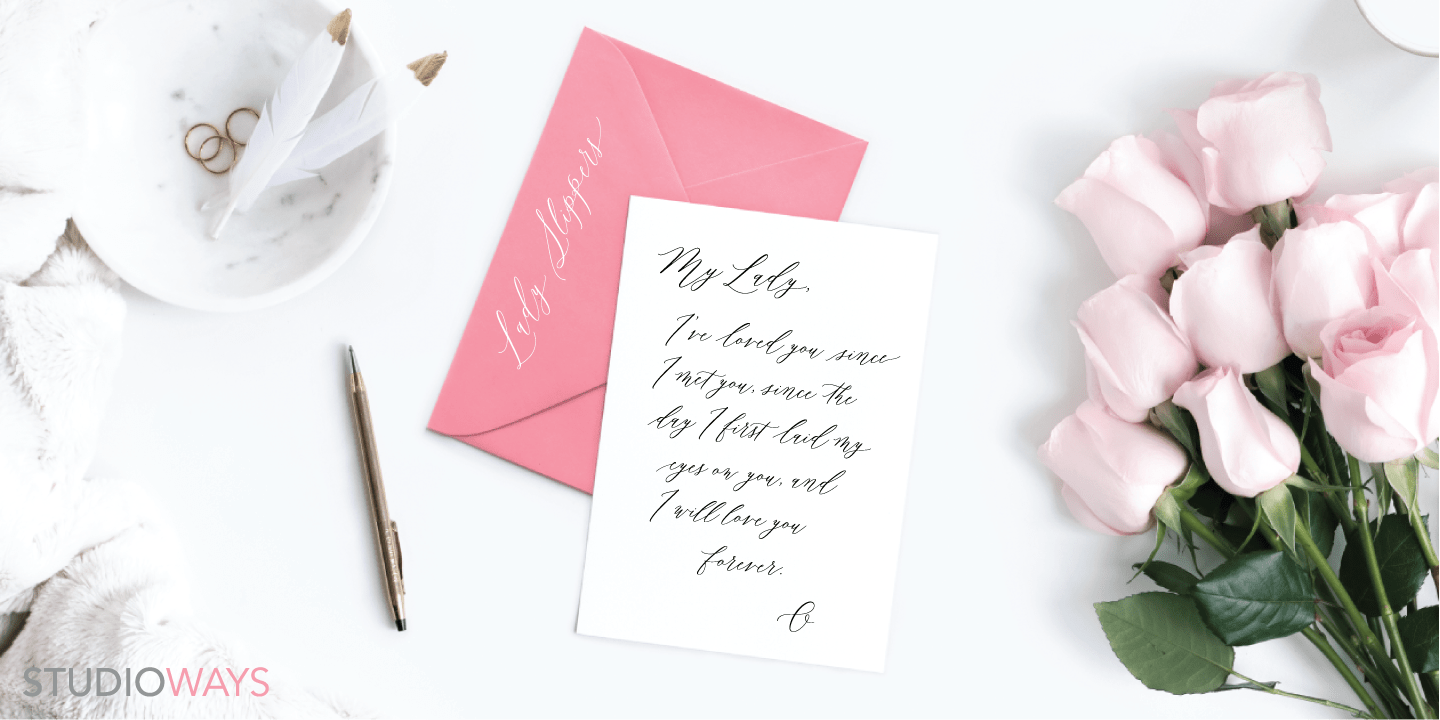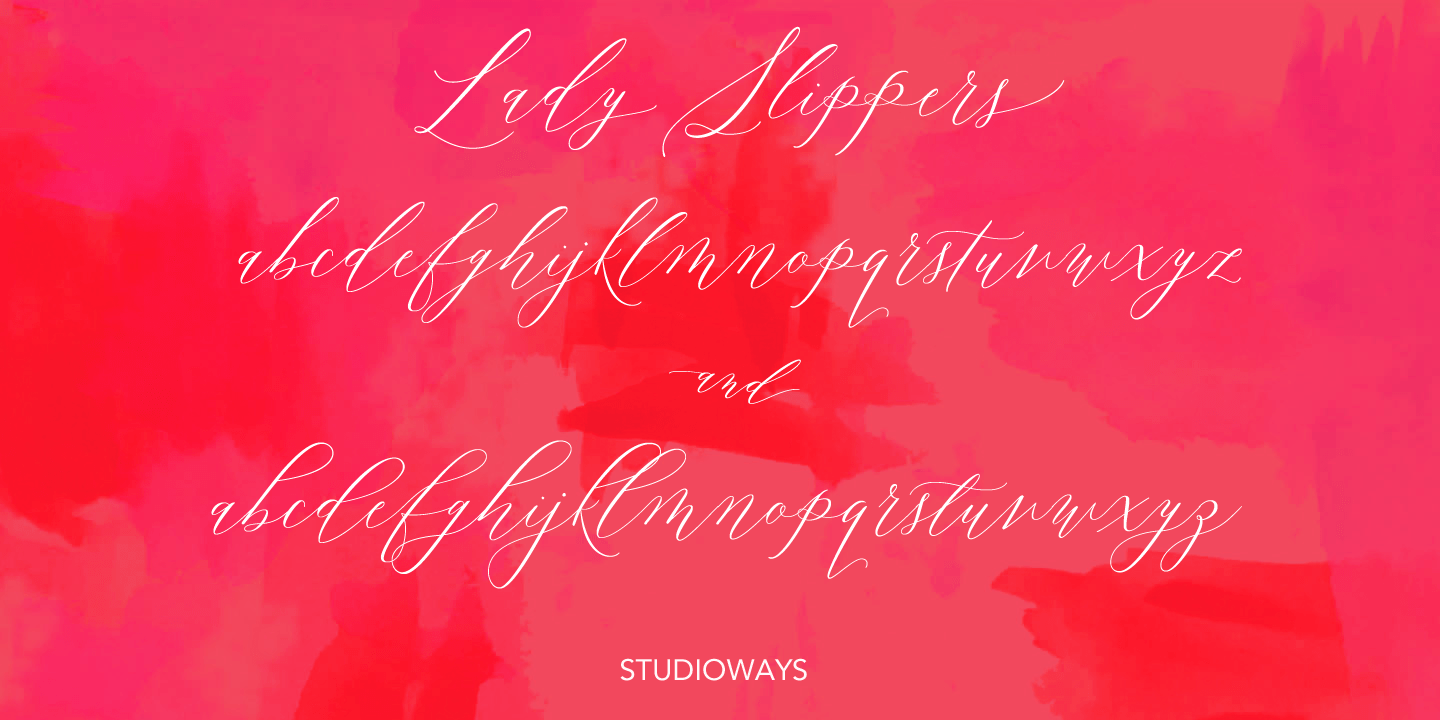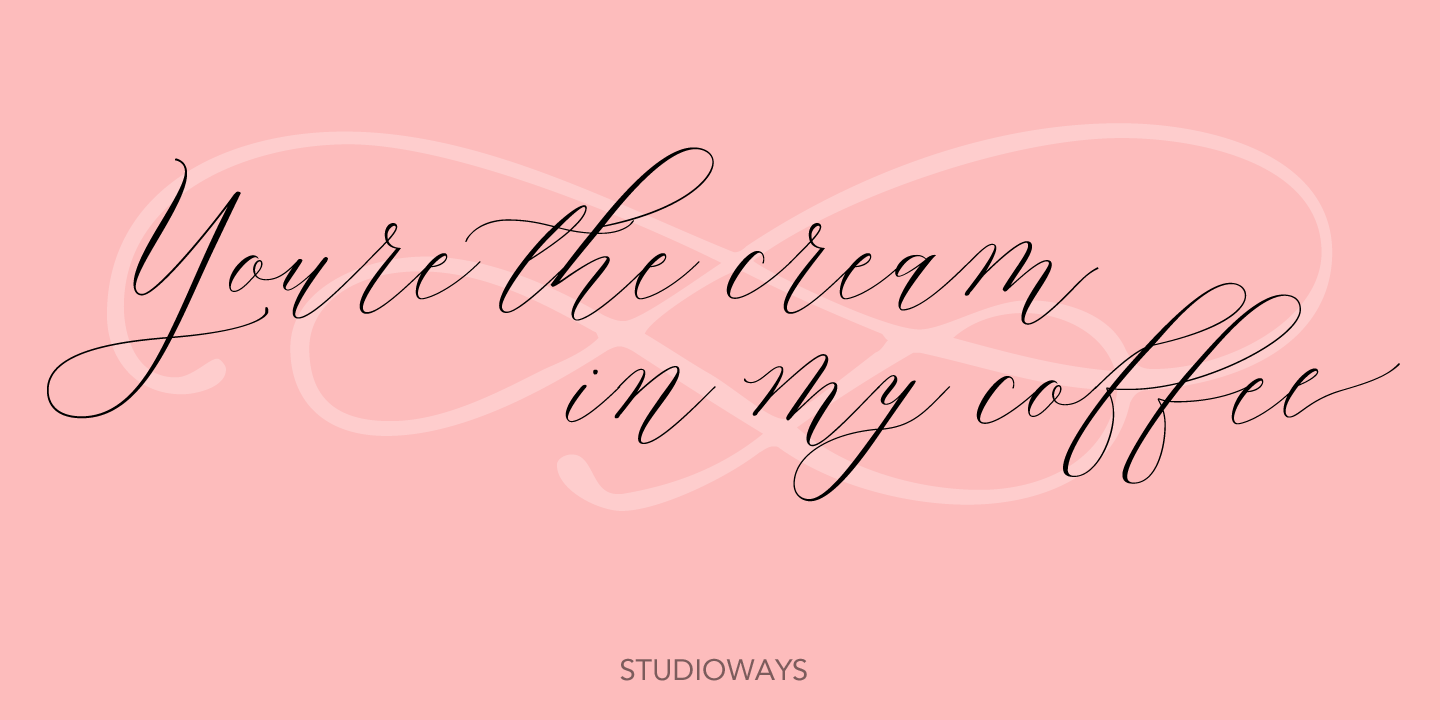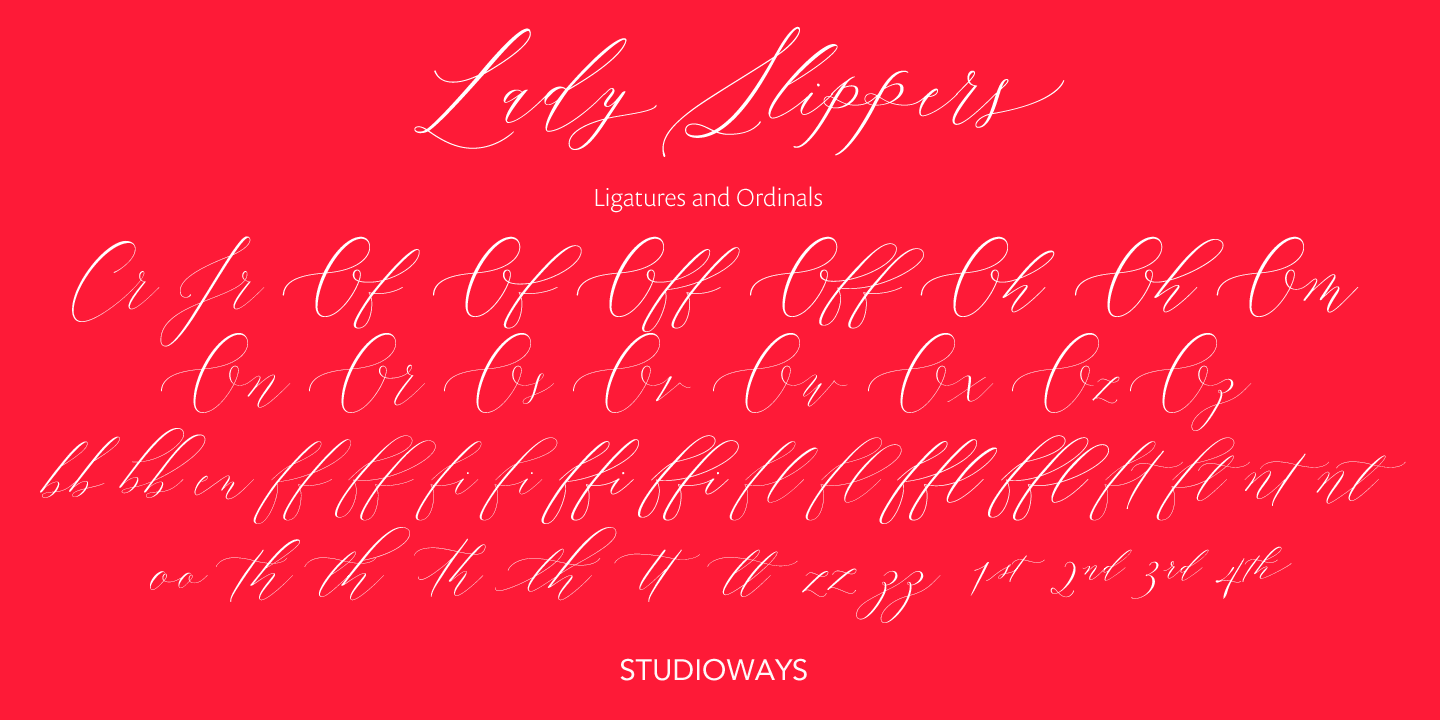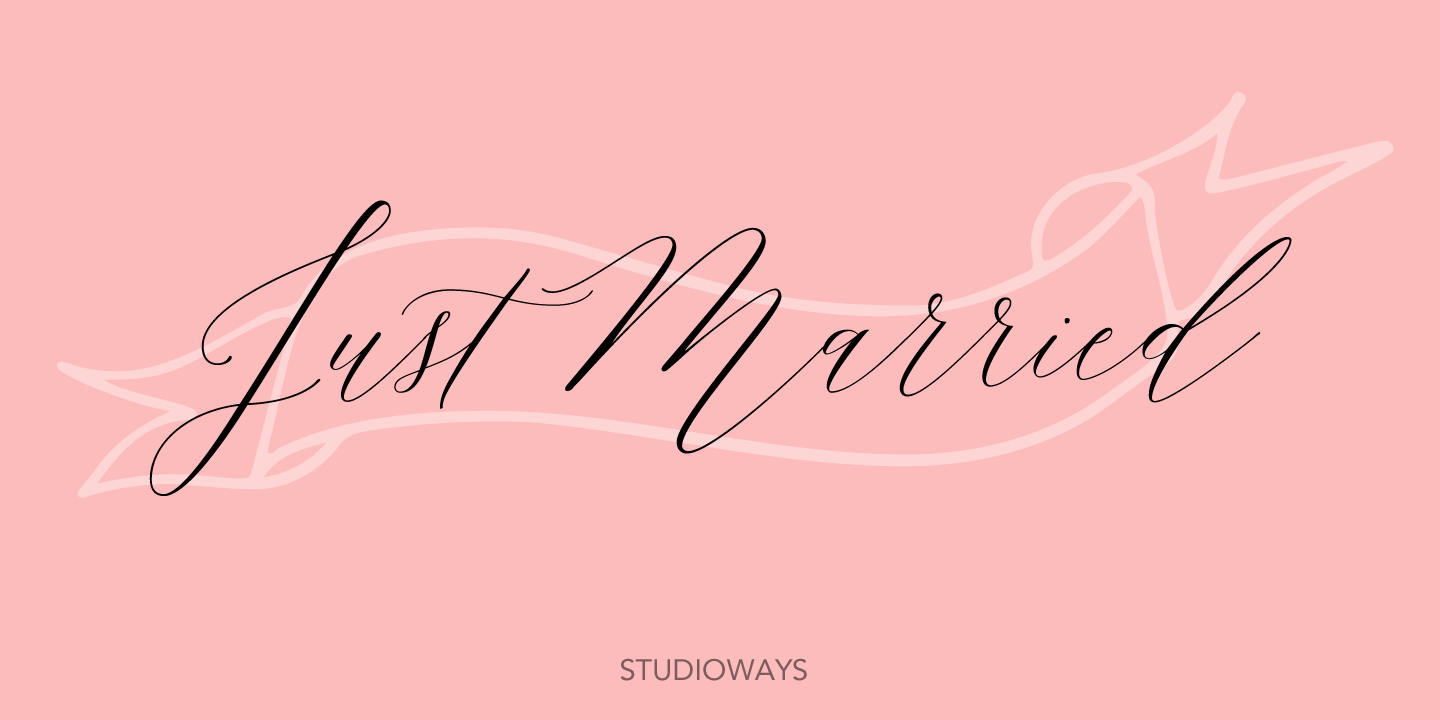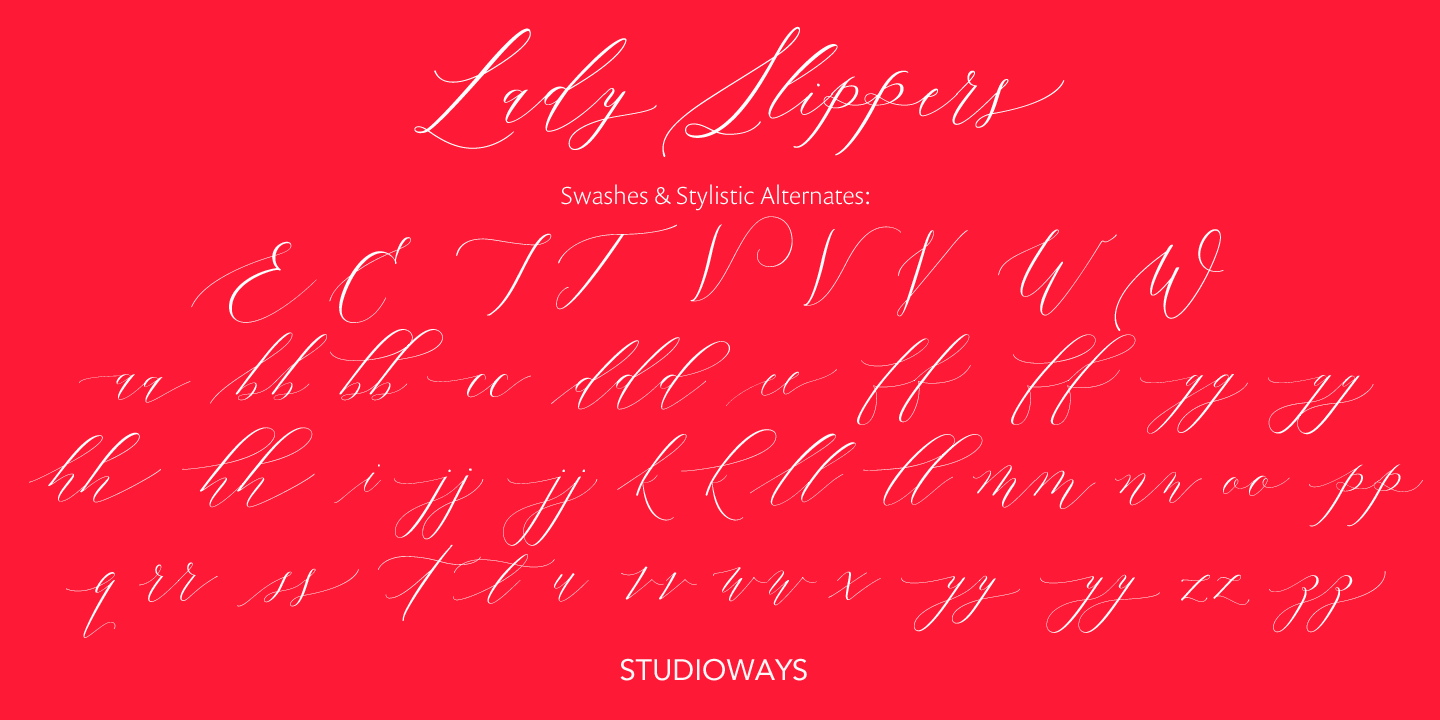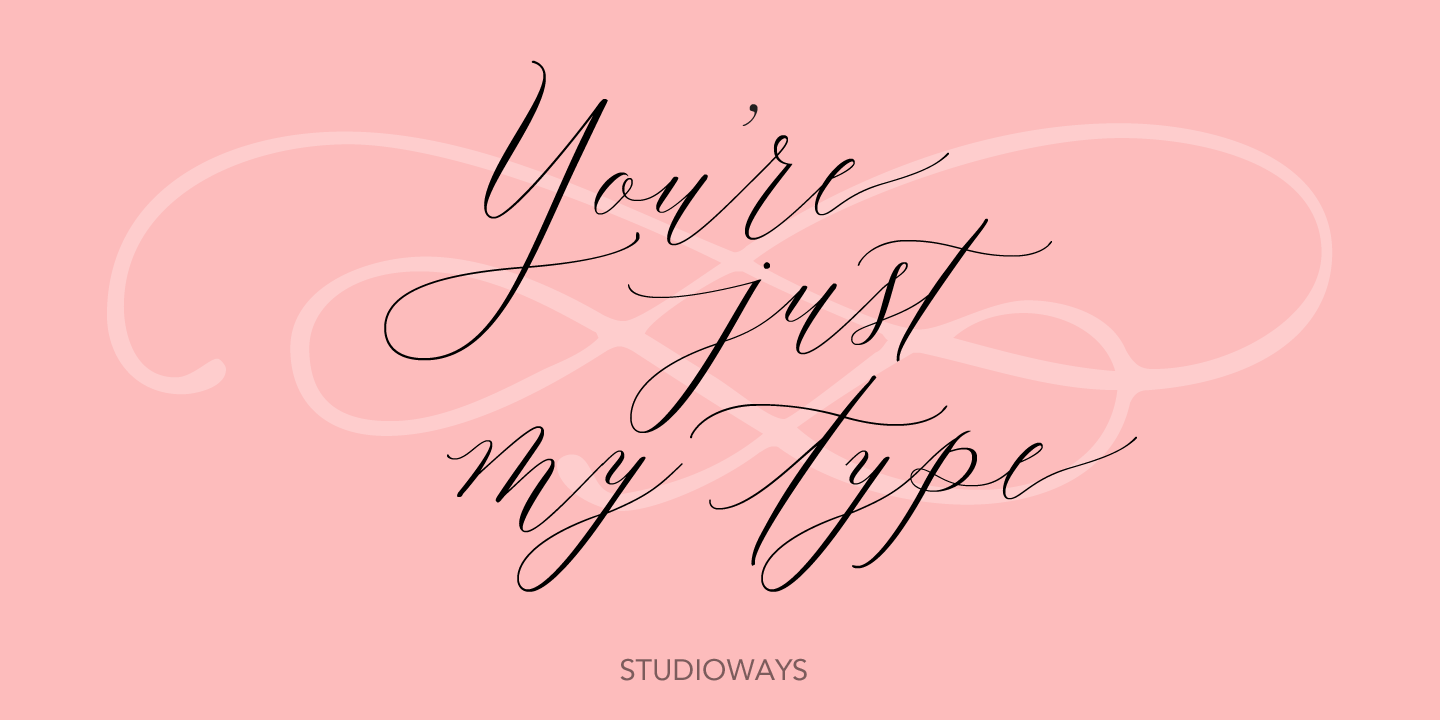
Lady Slippers Pro
Font Family by Studioways
Lady Slippers Pro is a delicate and beautiful typeface resembling one of Eliza's calligraphic styles! Lady Slippers Pro includes many OpenType bells and whistles like, swashes, ligatures, discretionary ligatures and stylistic alternates. Enabling those features makes it possible to create beautiful and seemingly hand-written calligraphy designs.